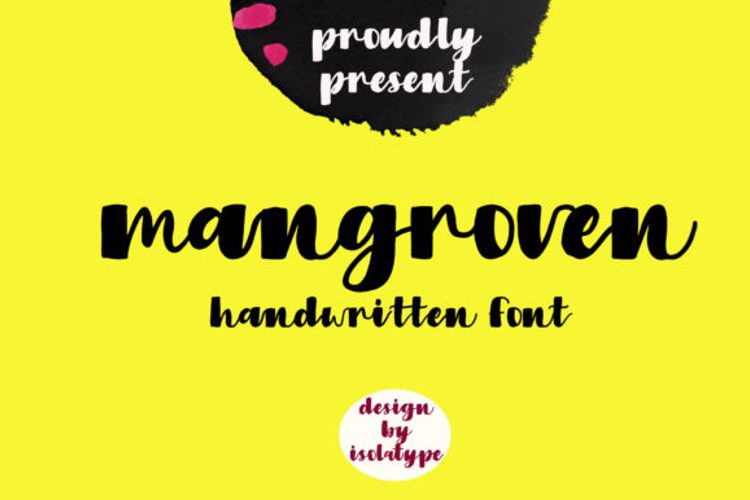
Mangroven Font
Mangroven is a gorgeous and bold handwritten font, crafted to give your headlines and logotype projects a stylish touch. This font reads as strong, confident, and dynamic and can add tons of nostalgic character to your designs.